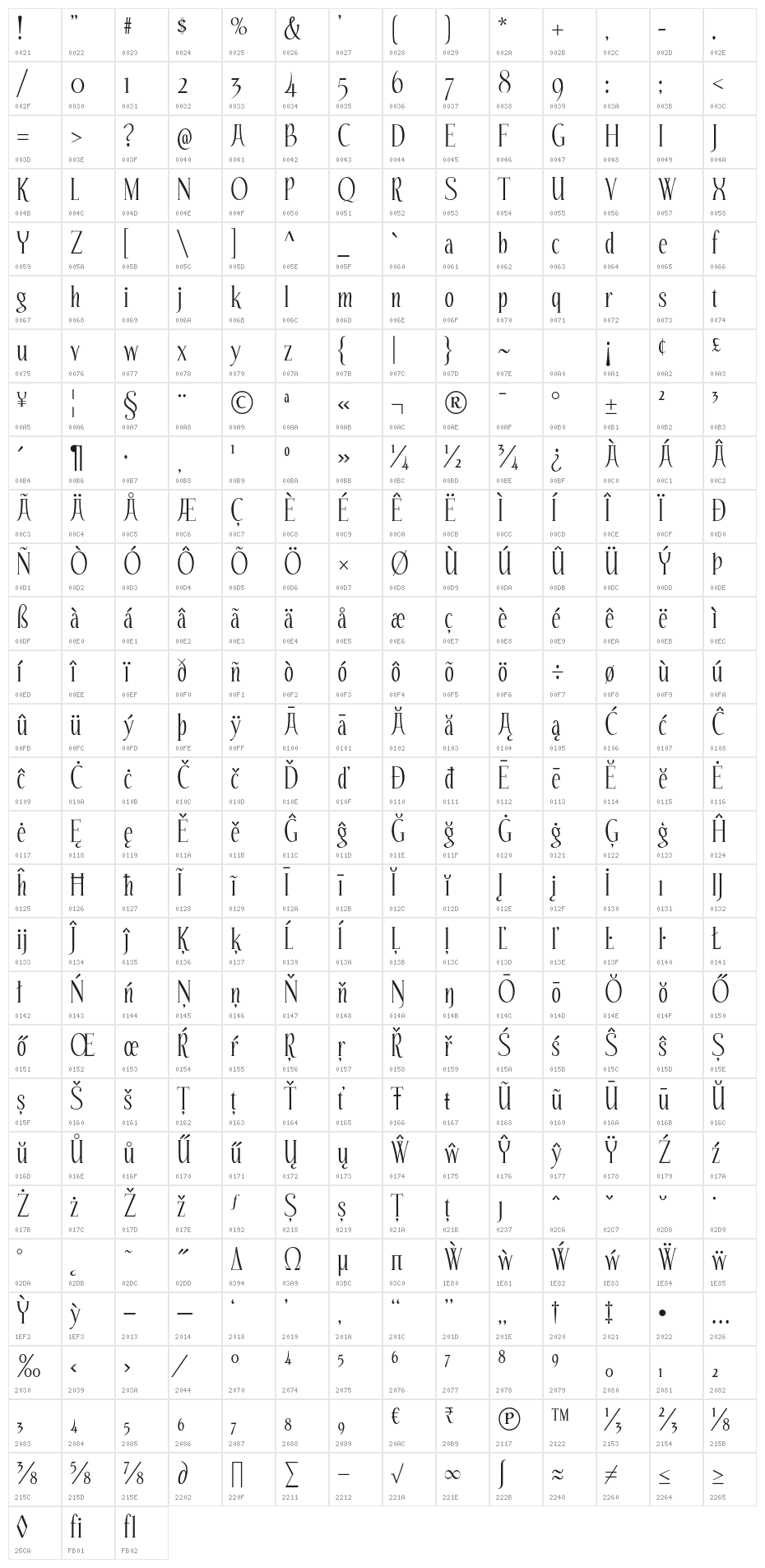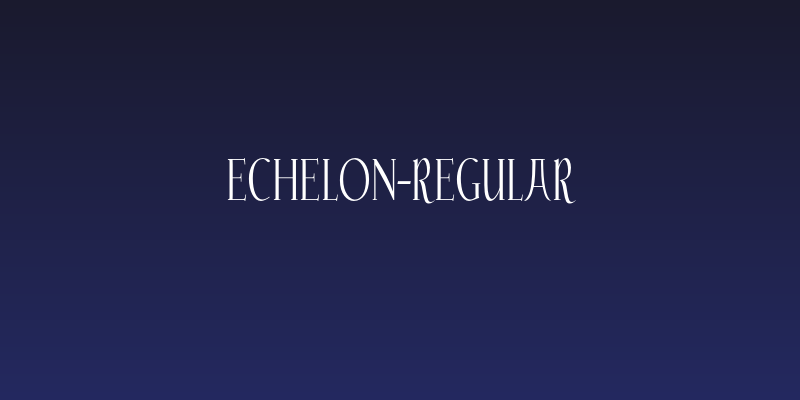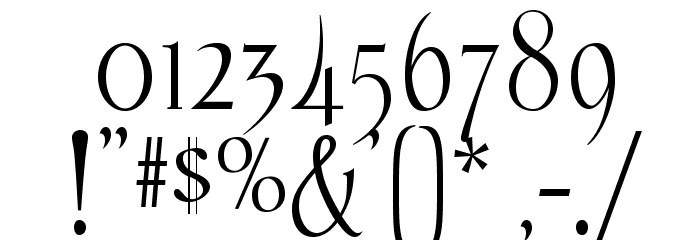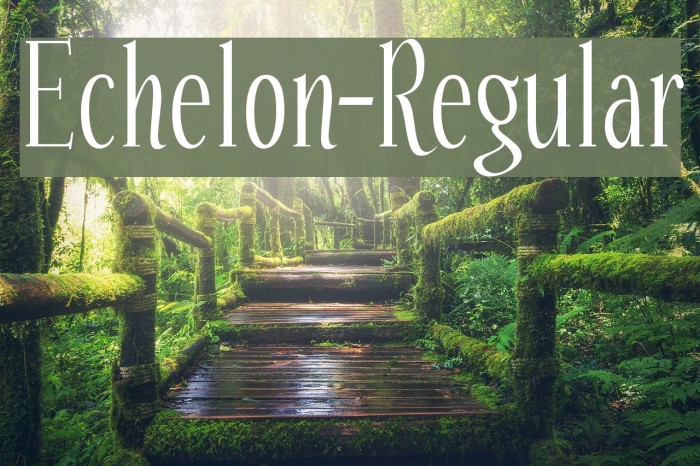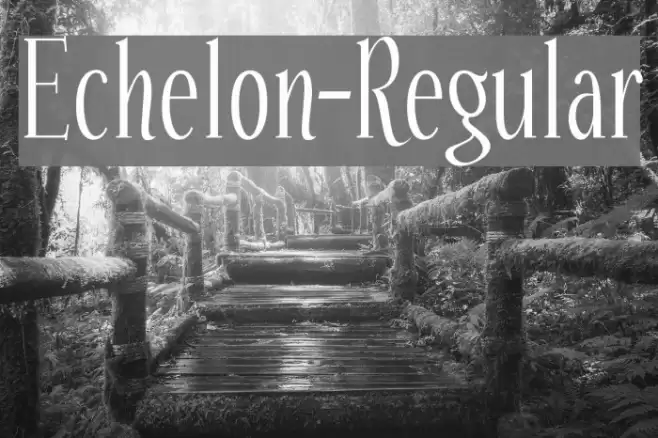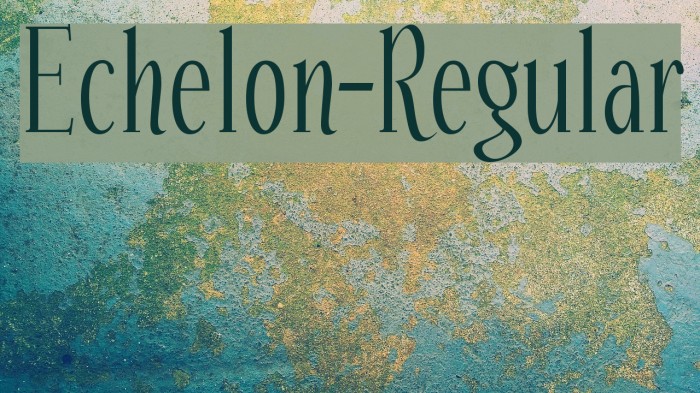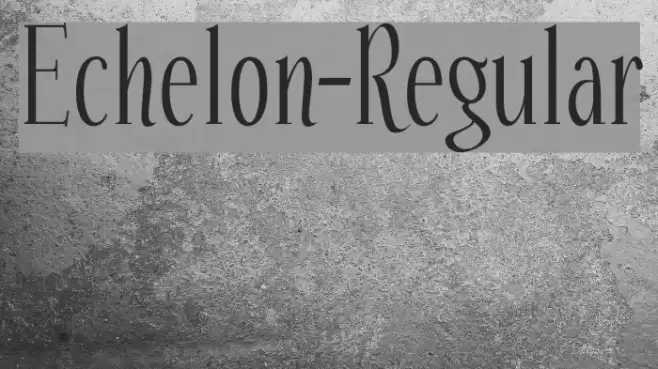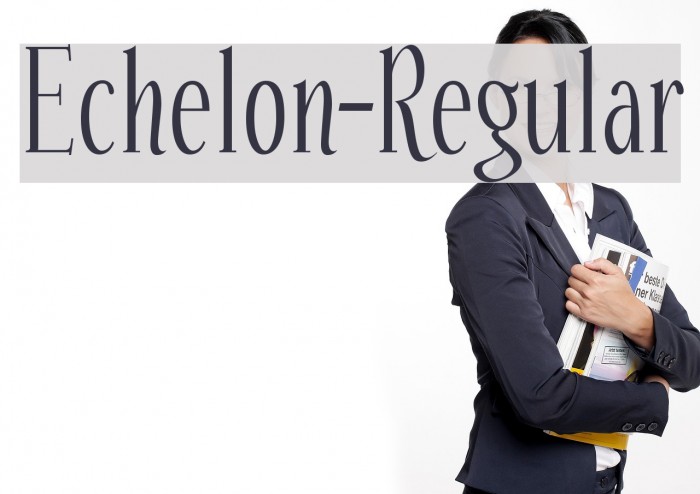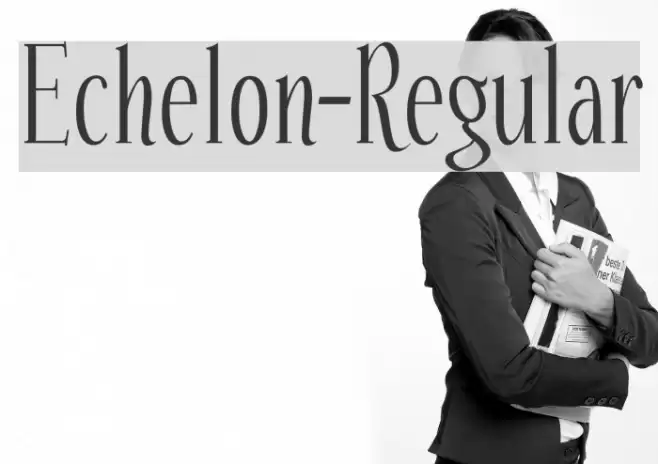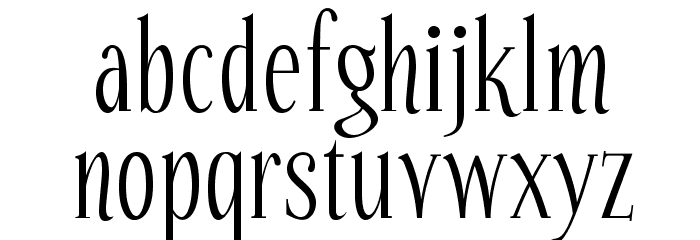
Echelon-Regular Font
Echelon-Regular Description
This font features a unique blend of elegance and modernity, characterized by its tall, slender letterforms and subtle curves. The uppercase letters exhibit a distinct flair with elongated verticals and gentle serifs, giving it a sophisticated appearance. The lowercase letters maintain a consistent style, with a slightly more relaxed form that complements the uppercase. Numerals are designed with a similar aesthetic, ensuring readability while maintaining the font's overall elegance. Special characters are thoughtfully crafted to match the font's style, making it versatile for various design needs.